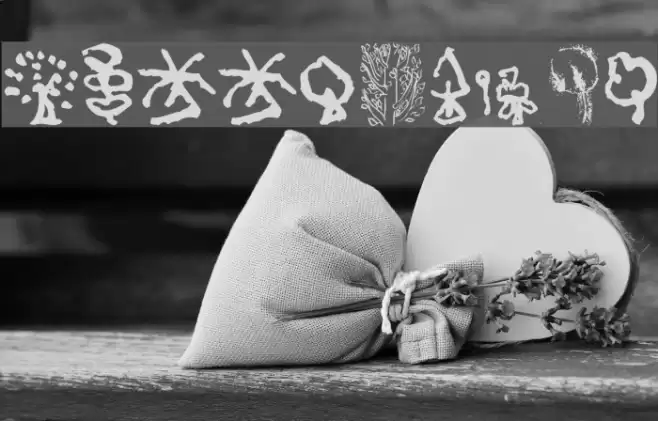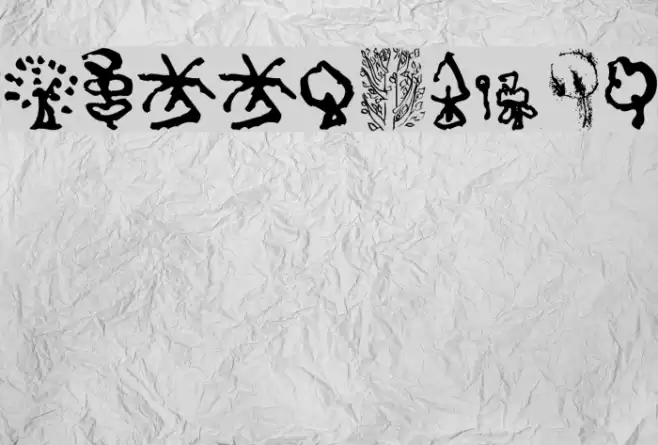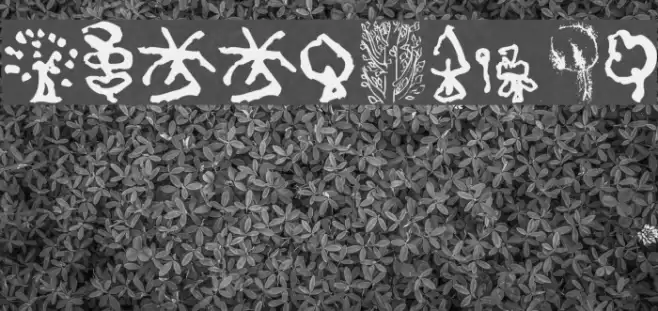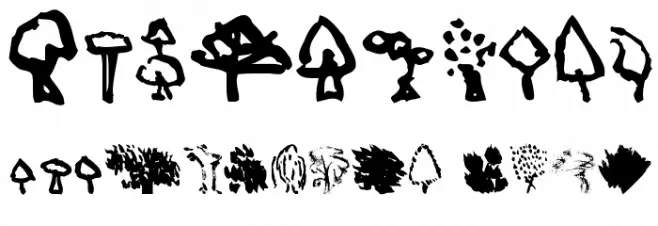
TreesAndCo Font
TreesAndCo Description
A highly decorative and illustrative font composed entirely of unique tree and foliage drawings for each character, featuring a hand-drawn, organic style with varying levels of detail and abstraction.
Whimsical, hand-drawn tree illustrations replace traditional letterforms from Uncategorized fonts.
- Proposed Projects: Children’s books, eco-friendly branding, environmental posters, creative invitations, nature-themed event materials.
- Overall Style: Decorative, Whimsical, Organic
- Use Case: Logos, Posters, Headlines, Themed Graphics